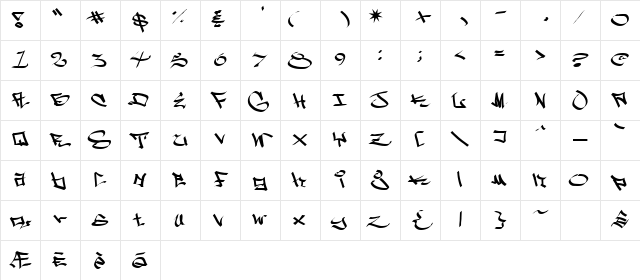
Complete FFX Grafitti Plain glyph index. Displaying only characters natively supported by FFX Grafitti Plain font.
FFX Grafitti is a composed and adaptable typeface that performs quietly and consistently across a wide range of design contexts.